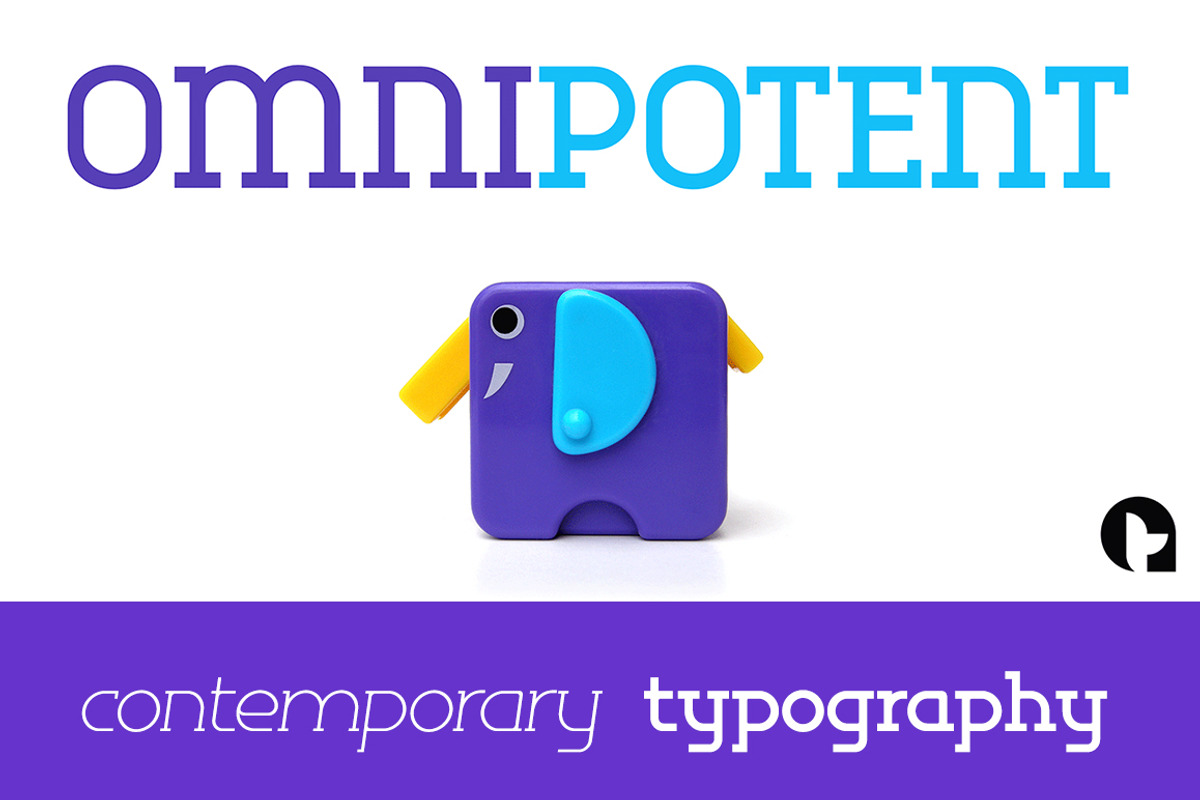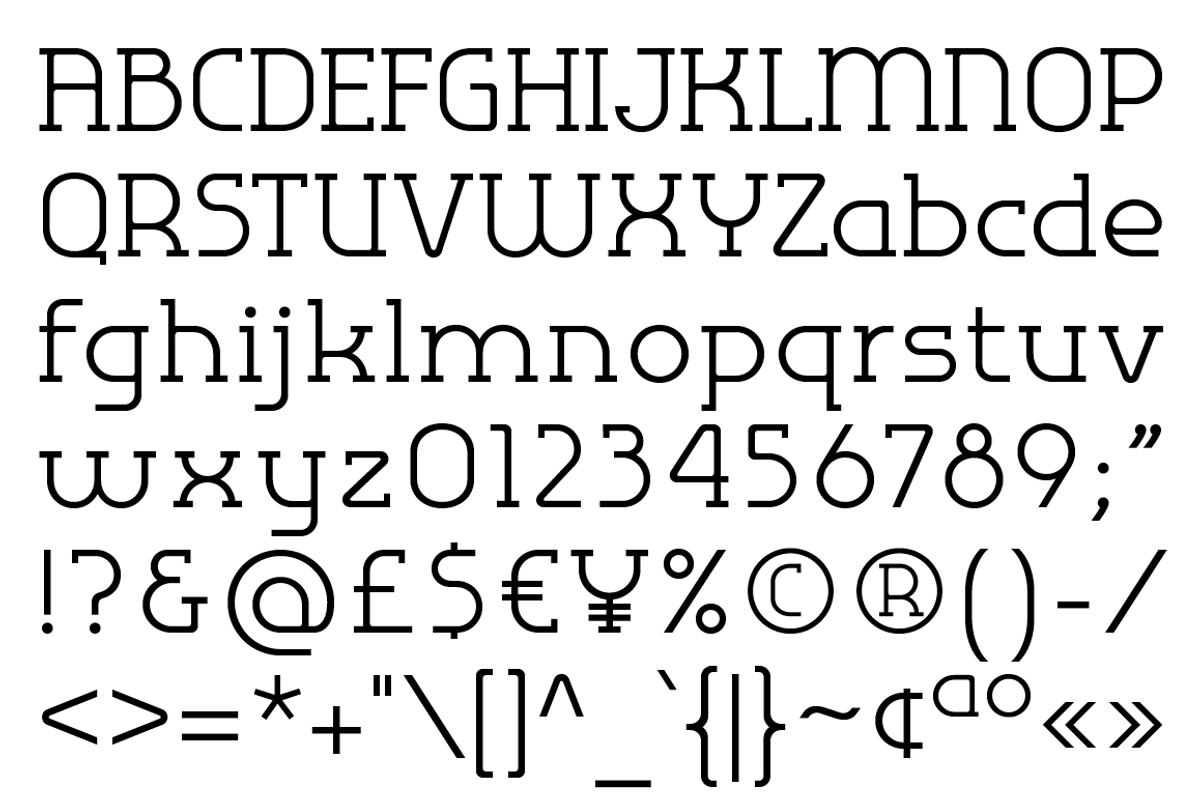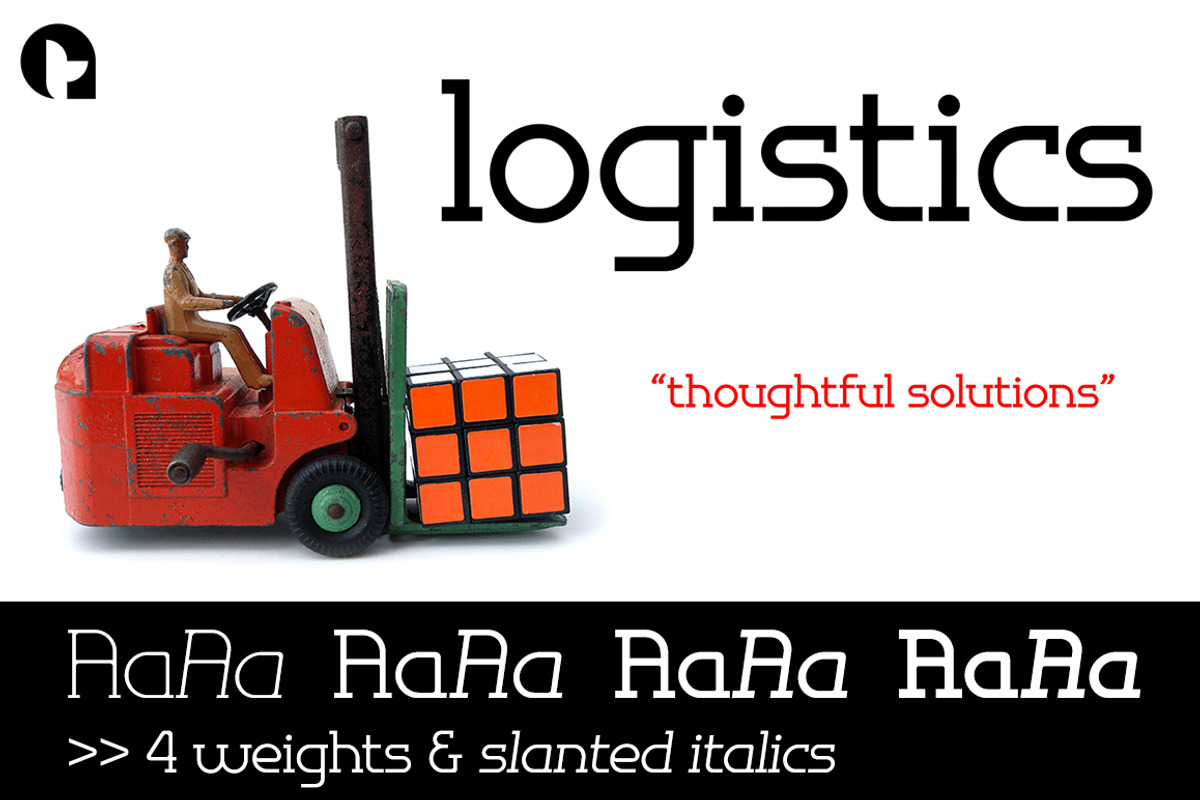
Omni Serif
Typefaces don't simply appear fully formed to a designer, even with a clear concept in mind, they evolve naturally during the design & development process. Out of the current ‘Artytype’ collection, Omni has evolved the most, being a stripped back off-spring from several exploratory exercises.
At first glance and particularly at small scale, you'd be forgiven for thinking the basic characteristics have a conventional outlook; but on closer inspection, it’s own distinctive, clean cut, subtle styling becomes apparent, revealing enough personality to stand alone or complement a wide variety of projects; subsequently, it’s a font that won't go out of style quickly and may even become a modern classic in time.
The Omni family has 2 distinct styles, sans and serif, each style being available in 4 weights; all 8 fonts have slanted options to match making a total of 16 fonts, each supporting Western and Central European character sets.
Dictionary definition of OMNI: Combining form - Of all things, in all ways or places. Quite an apt name for a font with ubiquitous aspirations.